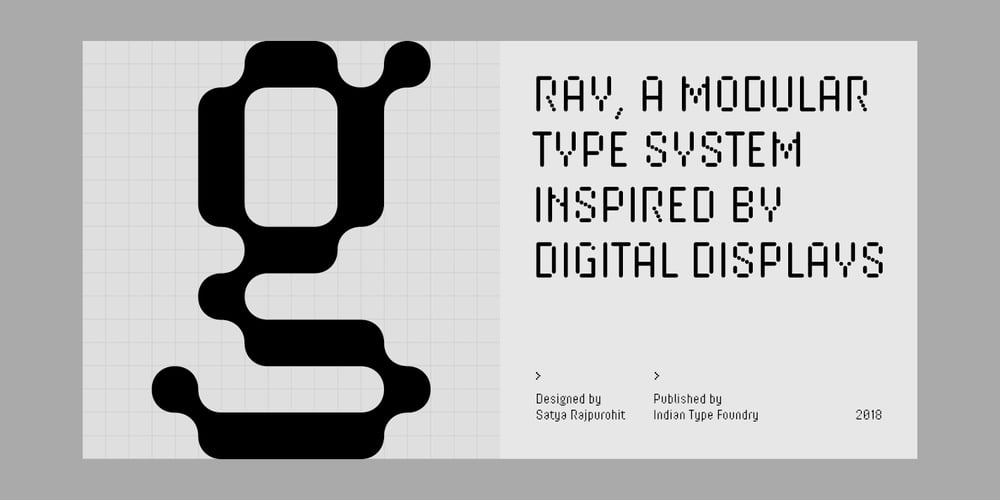
Ray Font Family was designed by Satya Rajpurohit and published by Indian Type Foundry. Ray contains 5 styles and family package options. Ray is a light-hearted family of display fonts. Its letterforms were inspired by the kind of typefaces used on digital displays. The family includes five variants, each of which shares the same character width, inter-character spacing, and OpenType features. They are each derived from a strict grid. Ray One’s letterforms make use of a series of dots overlayed on top of a background grid. The capital letters, lining figures, and lowercase ascenders are nine dots tall. The x-height is seven dots. The descenders have two dots worth of space available below the baseline. The Ray Two fonts uses squares instead of dots. These all run into each other, but still present a pixelated effect to the texts they set. Those squares are rounded off in Ray Three, making this style appear like a combination of the Ray One with the Ray Two font. Ray Four adds bridges between many of the gaps found between the grid units visible in Ray Three. These rounded elements from Ray Four are in turn re-squared in Ray Five, making that font look like a cross between Ray Two and Ray Four. The fonts in the Ray family include both lining and oldstyle figures, as well as several alternates for letters like the ‘Q’, ‘R’, ‘S’, and ‘g’. Ray come from Satya Rajpurohit, the Ahmedabad-based type designer who co-founded the Indian Type Foundry.